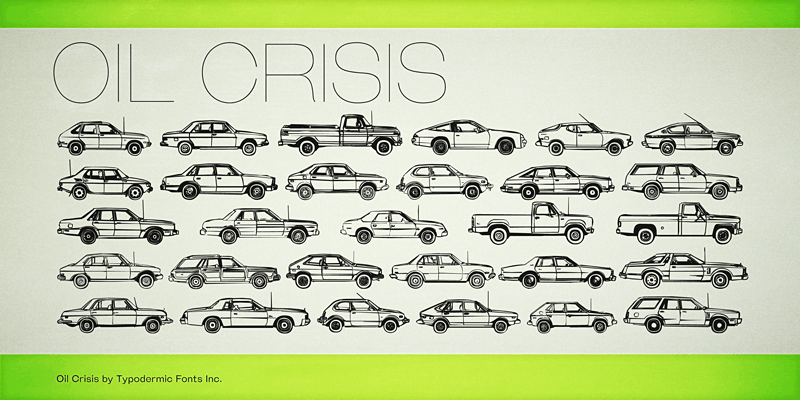
Oil Crisis is a dingbat font incorporating cars from the 1970’s. These fonts include a license that allows free commercial use: sometimes referred to as a desktop license. This allows you to install the fonts on a computer and use them to create posters, web graphics, game graphics, t-shirts, videos, signs, logos and more. Read the license agreement for details. If you'd like to embed these fonts in an app, ebook, on the web or anything that's not covered by the desktop license agreement, visit the link below. You'll find distributors who offer different types of licenses or you can contact me for help. http://typodermicfonts.com/oil-crisis/ |